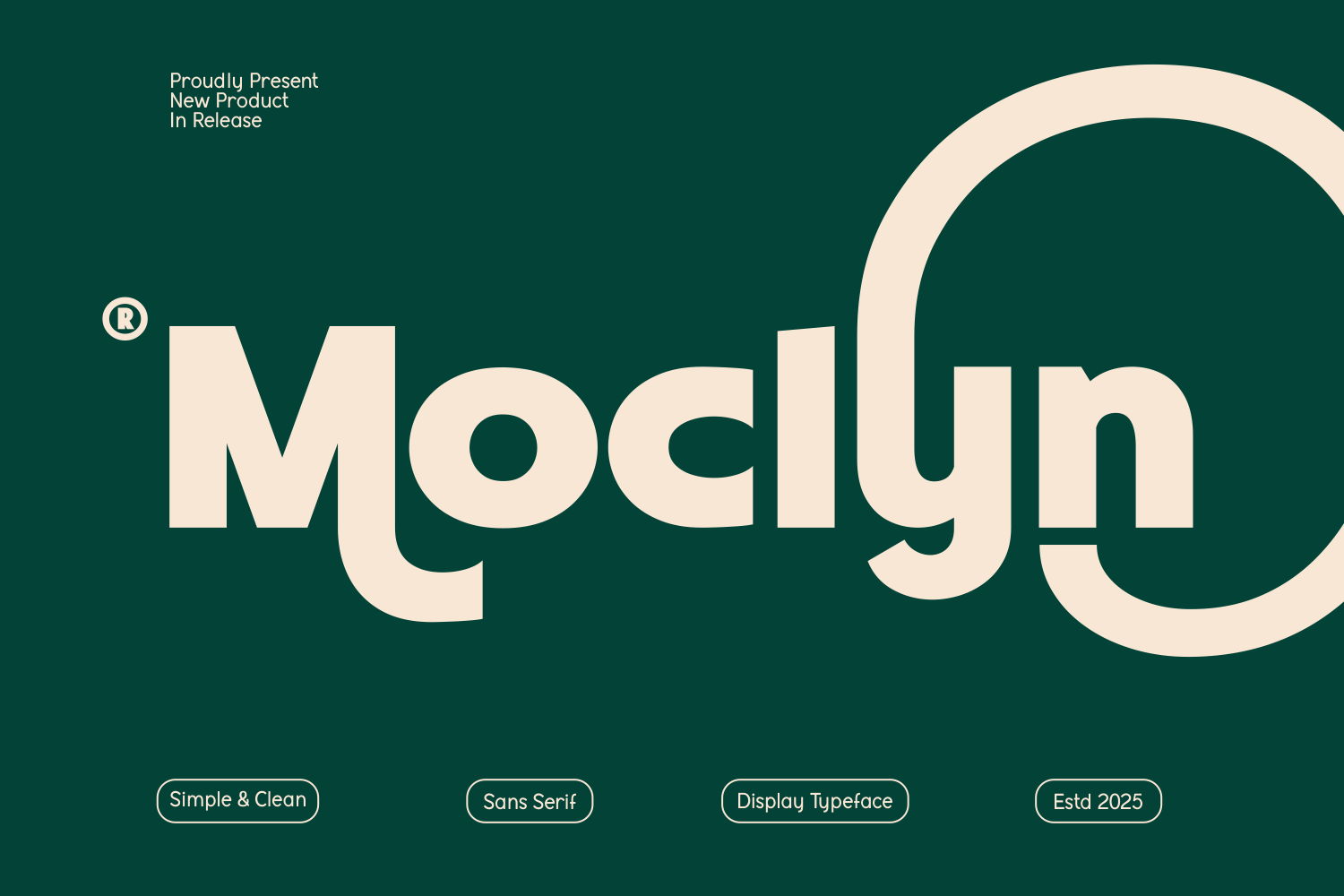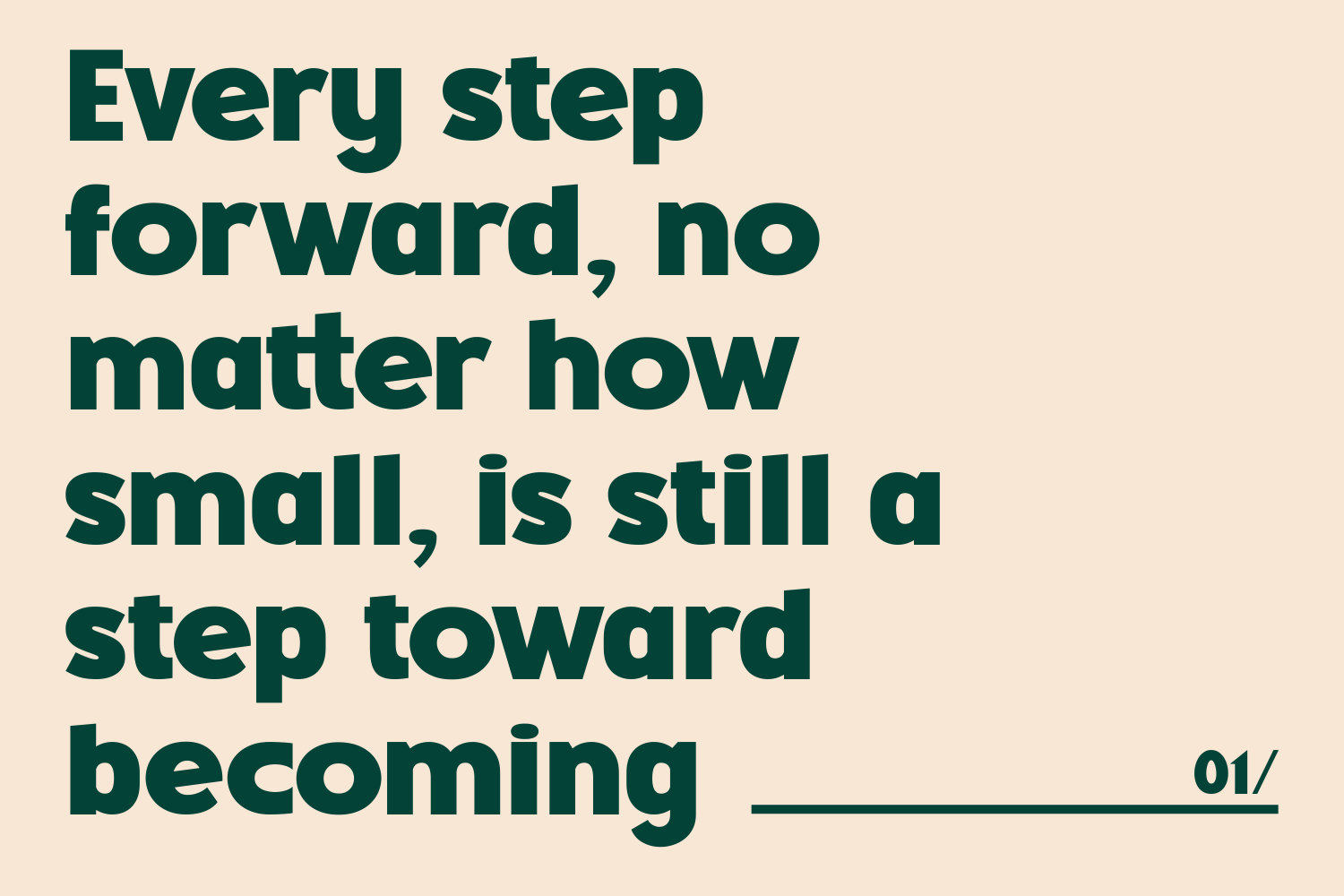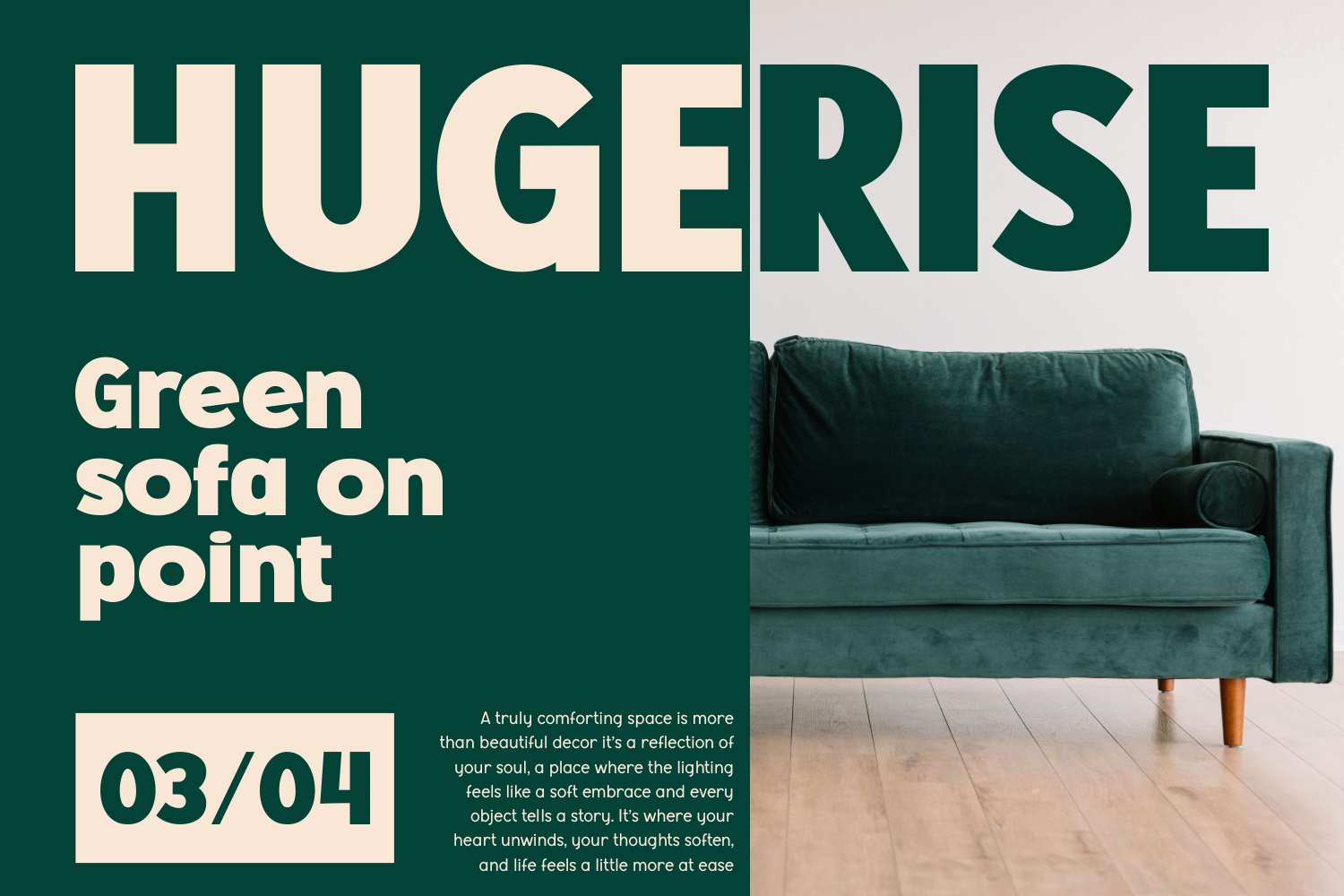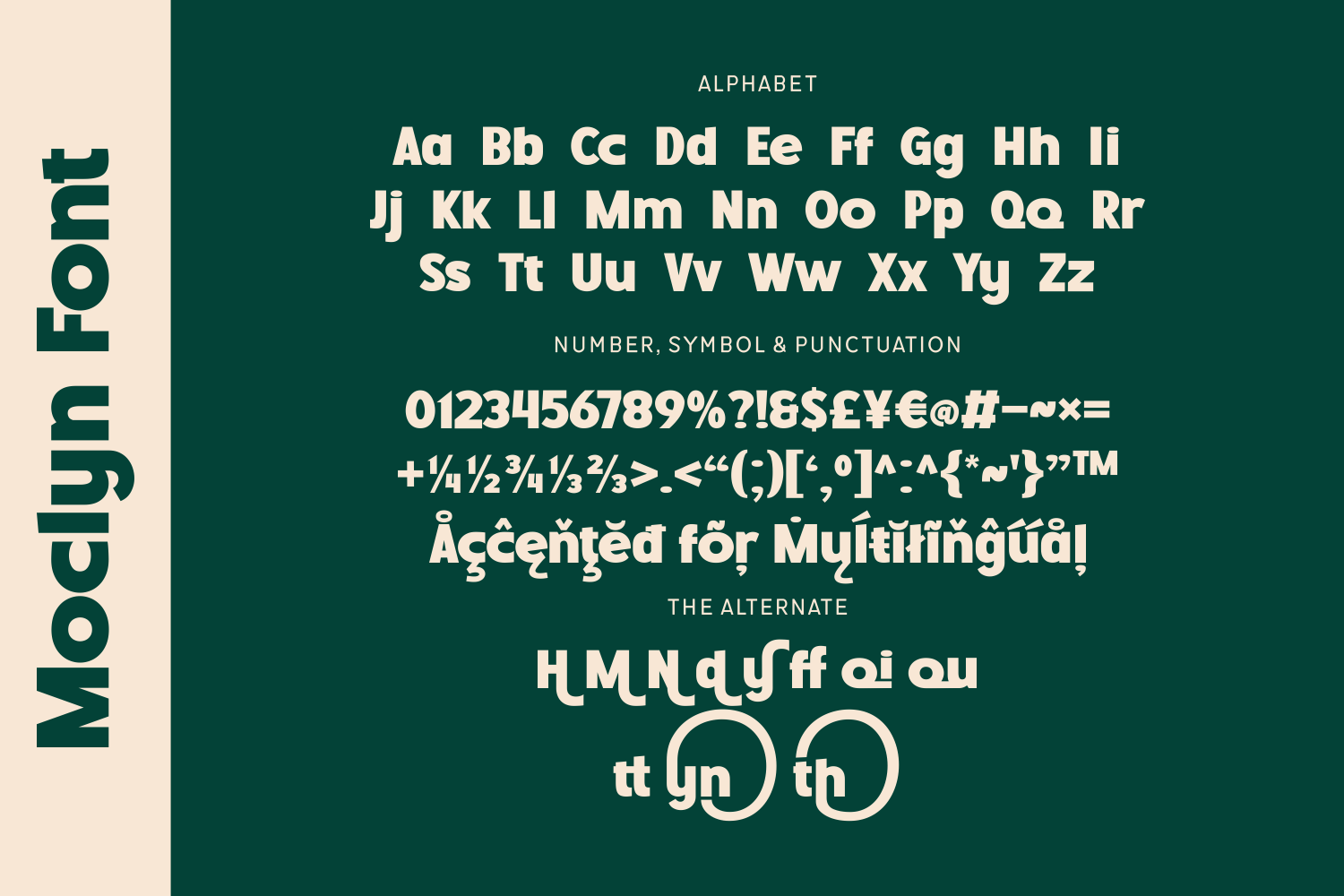
Moclyn is a bold and charismatic sans-serif display font with a retro-futuristic soul. Its chunky, high-contrast letterforms and quirky alternate characters make it ideal for branding that demands presence and personality.
The font’s rounded edges and geometric playfulness ensure a clean yet expressive look that thrives in both digital and print layouts.